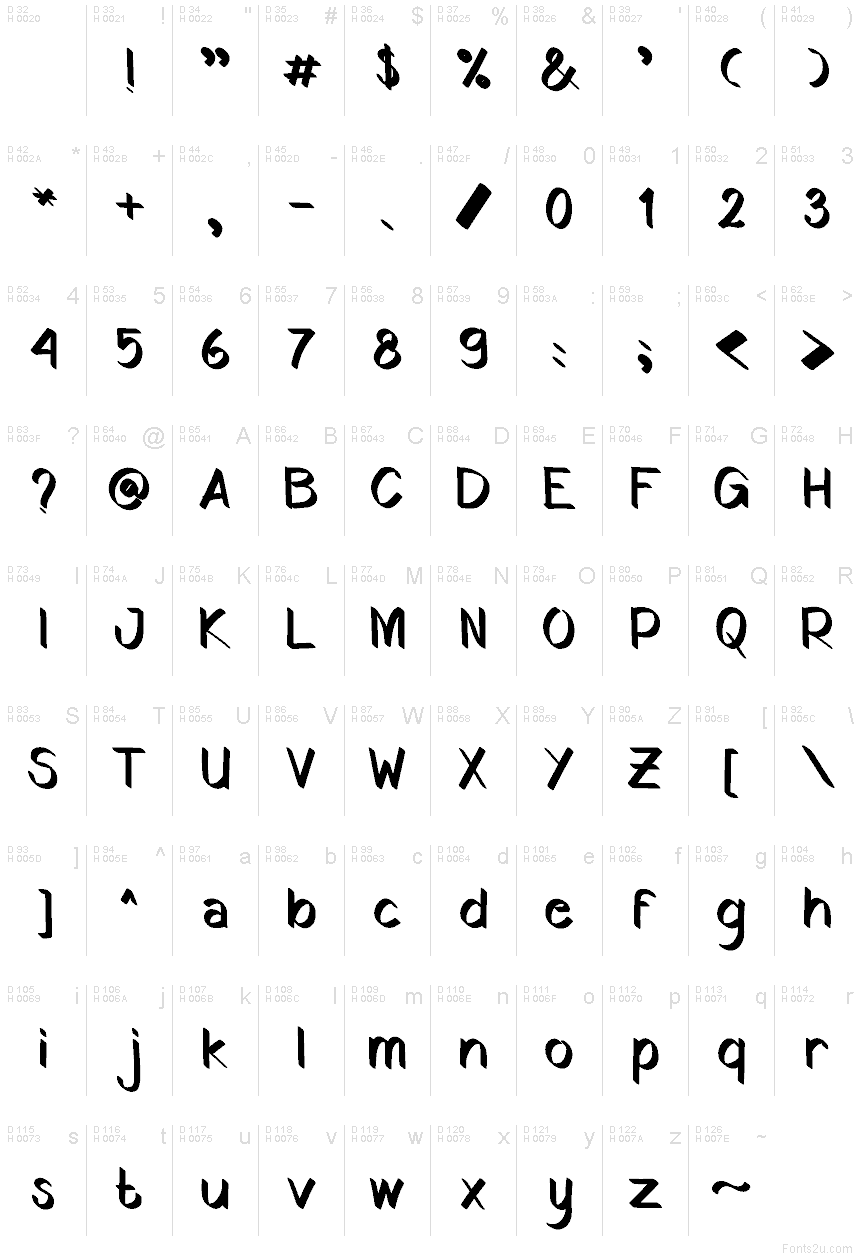
SKY WATER
Sky Water font by Studio Hello Good is a free handwritten font with an irregular and eccentric design. Its artistic flair, handmade appearance, and modern edge make it a perfect choice for adding casual elegance to your creative projects.